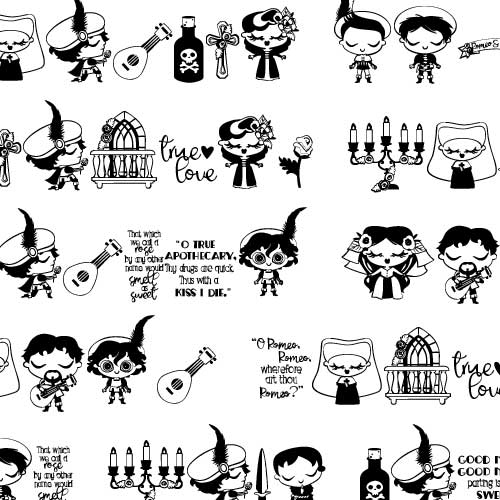
DB - Little Romeo - DB
This fun doodlebat font featuers 26 characters and imagery representing Shakespear's Romeo and Juliet. Perfect for cards, crafts, gifts, decor, planner stickers, scrapbook pages and more!